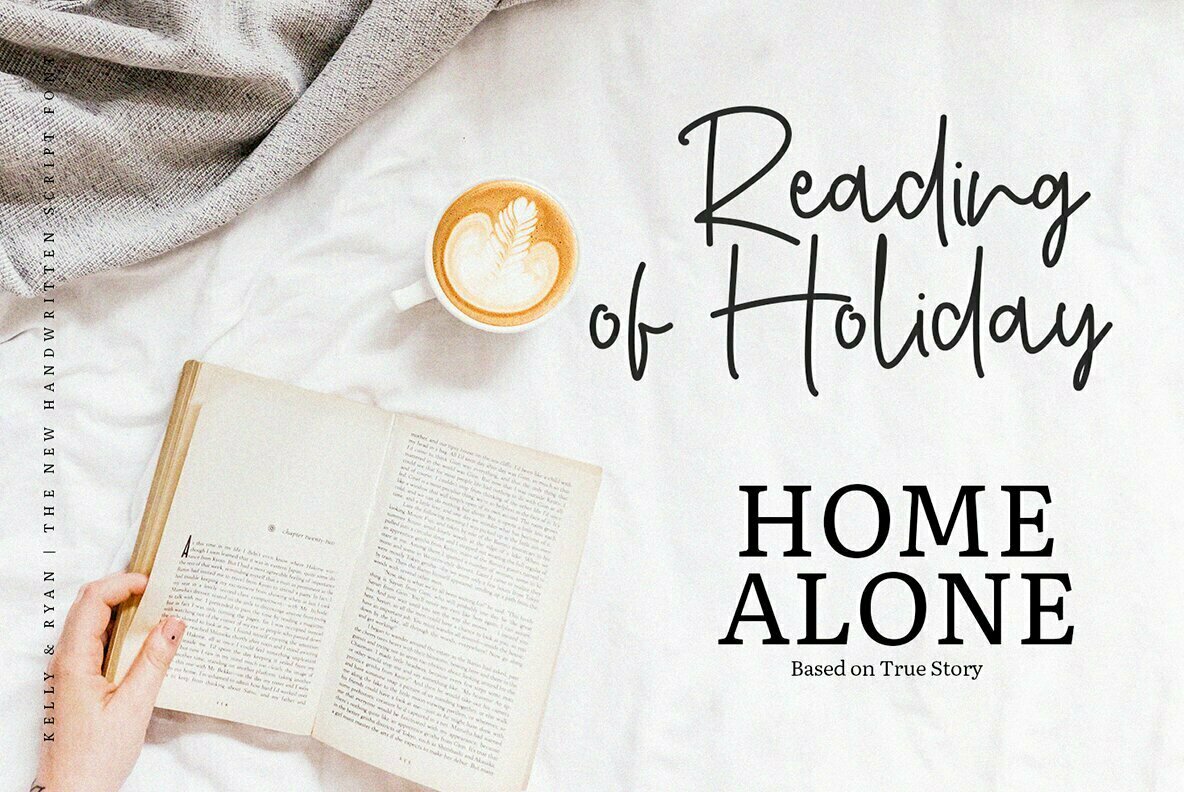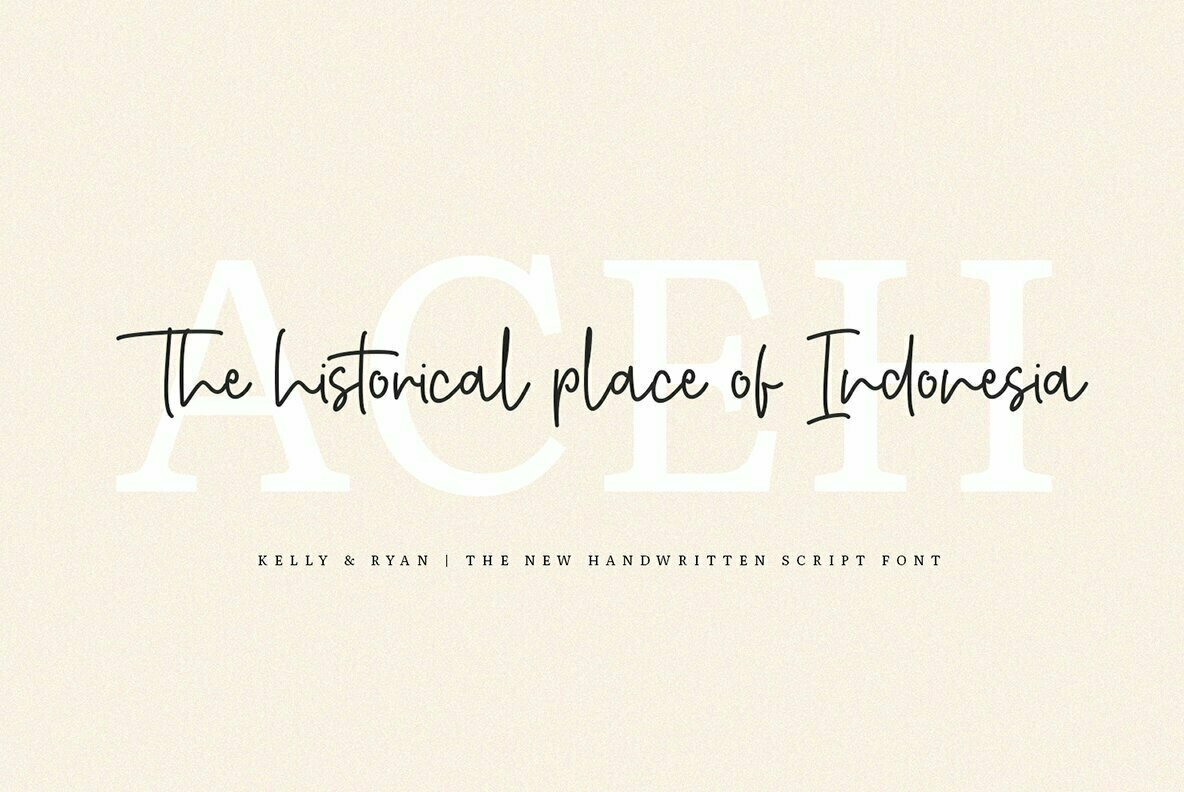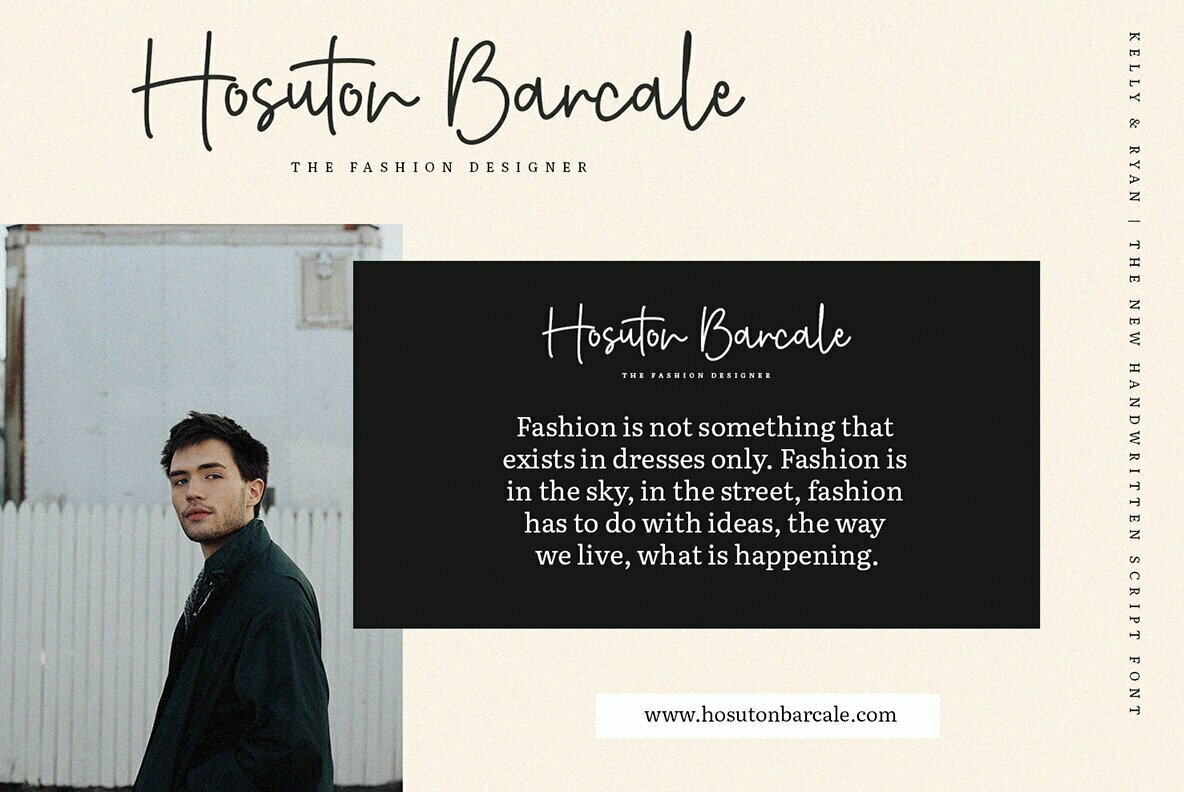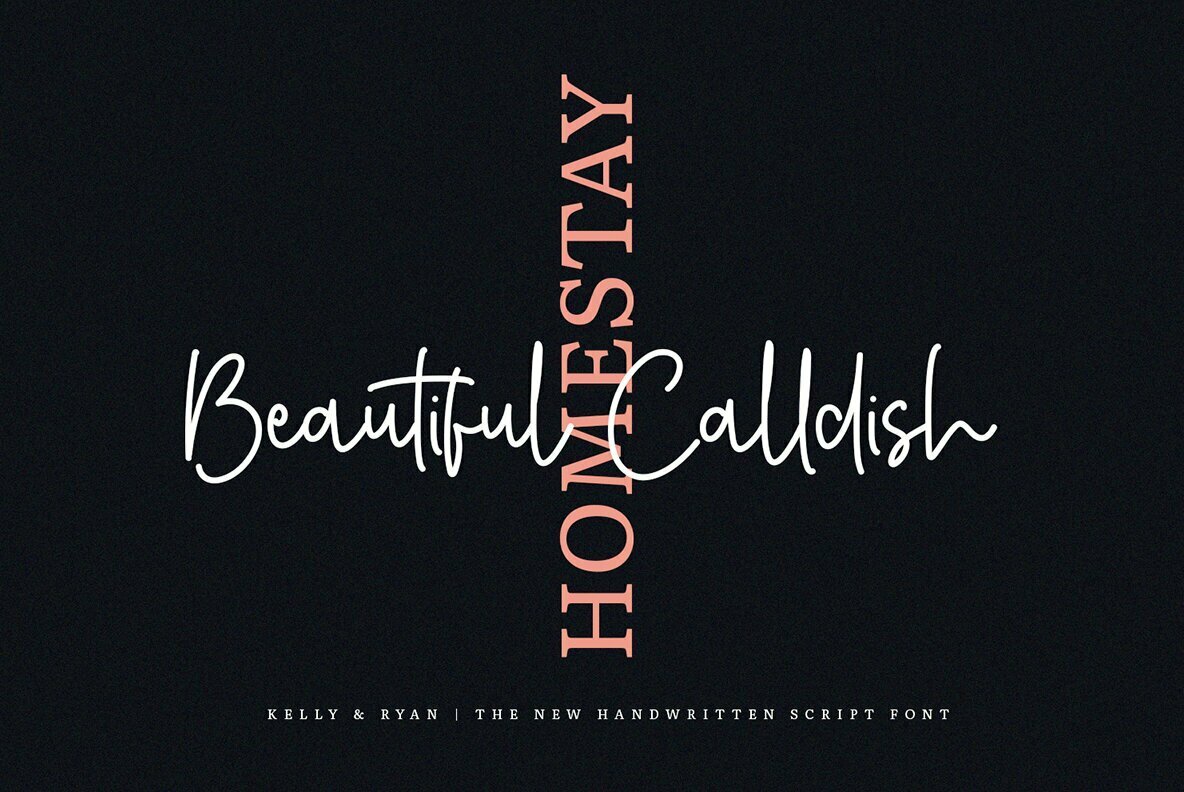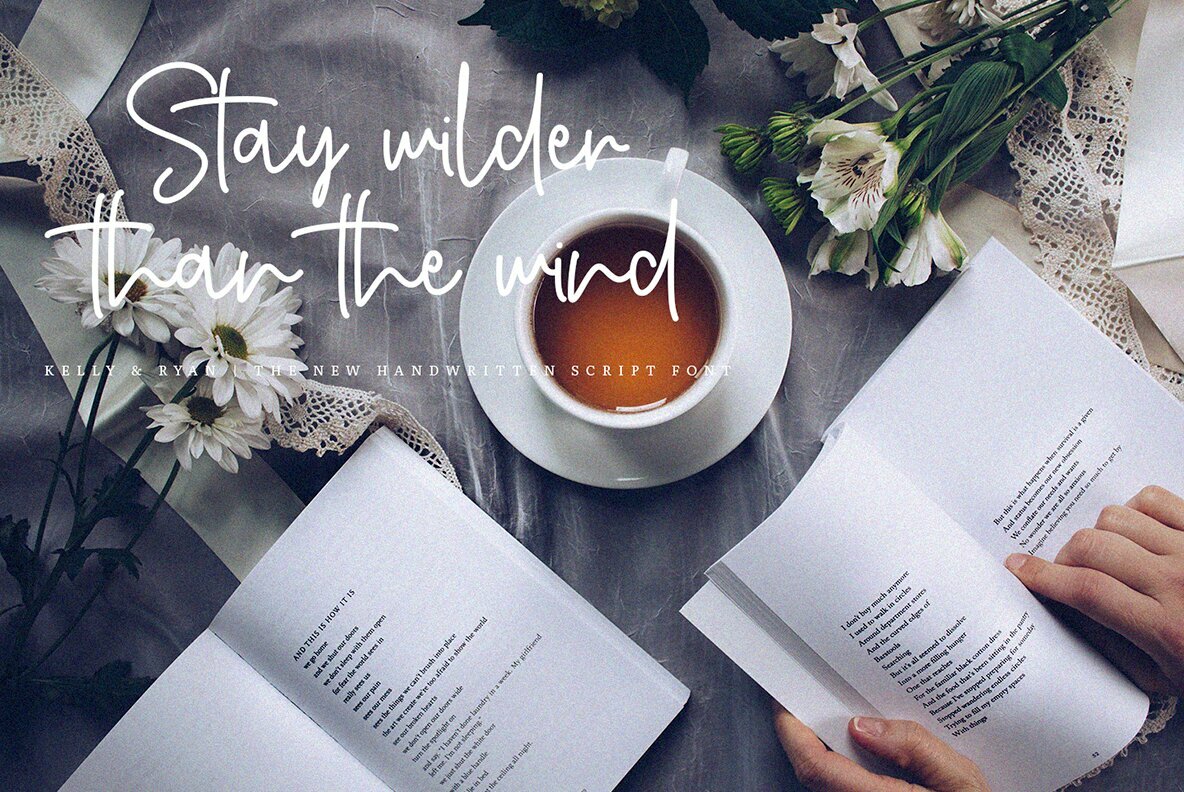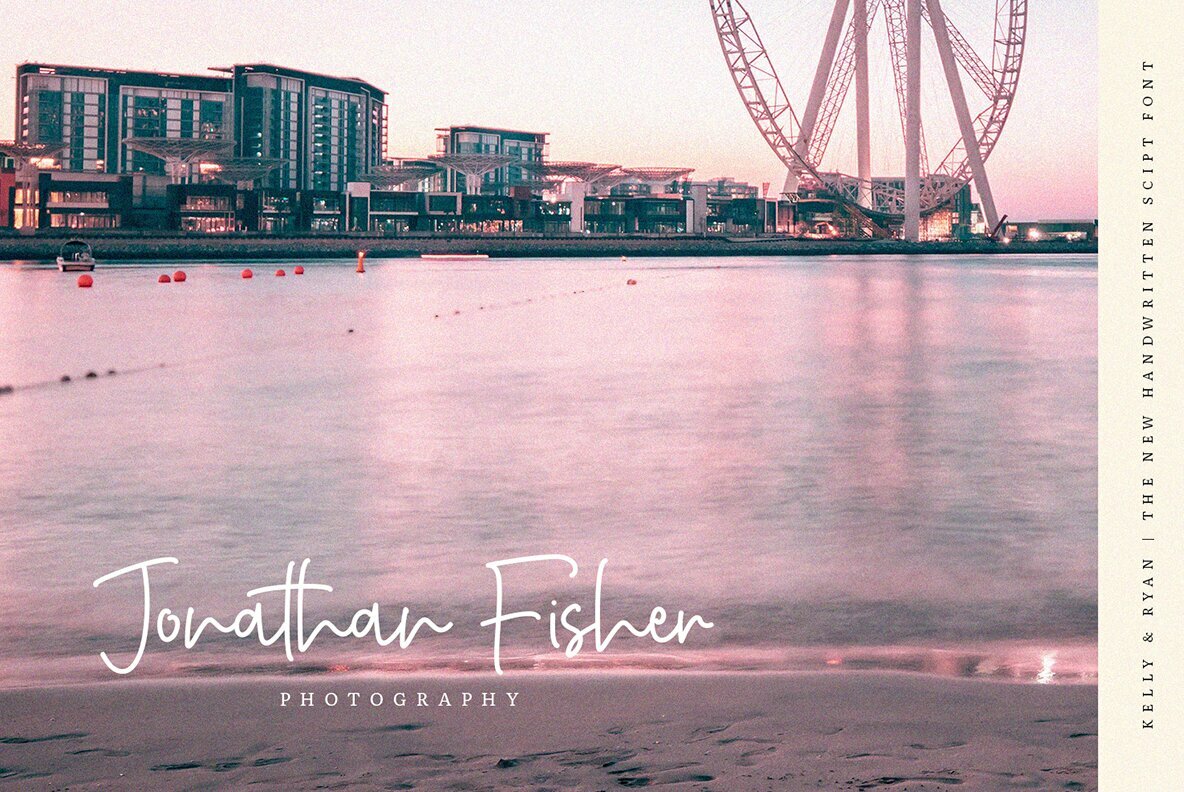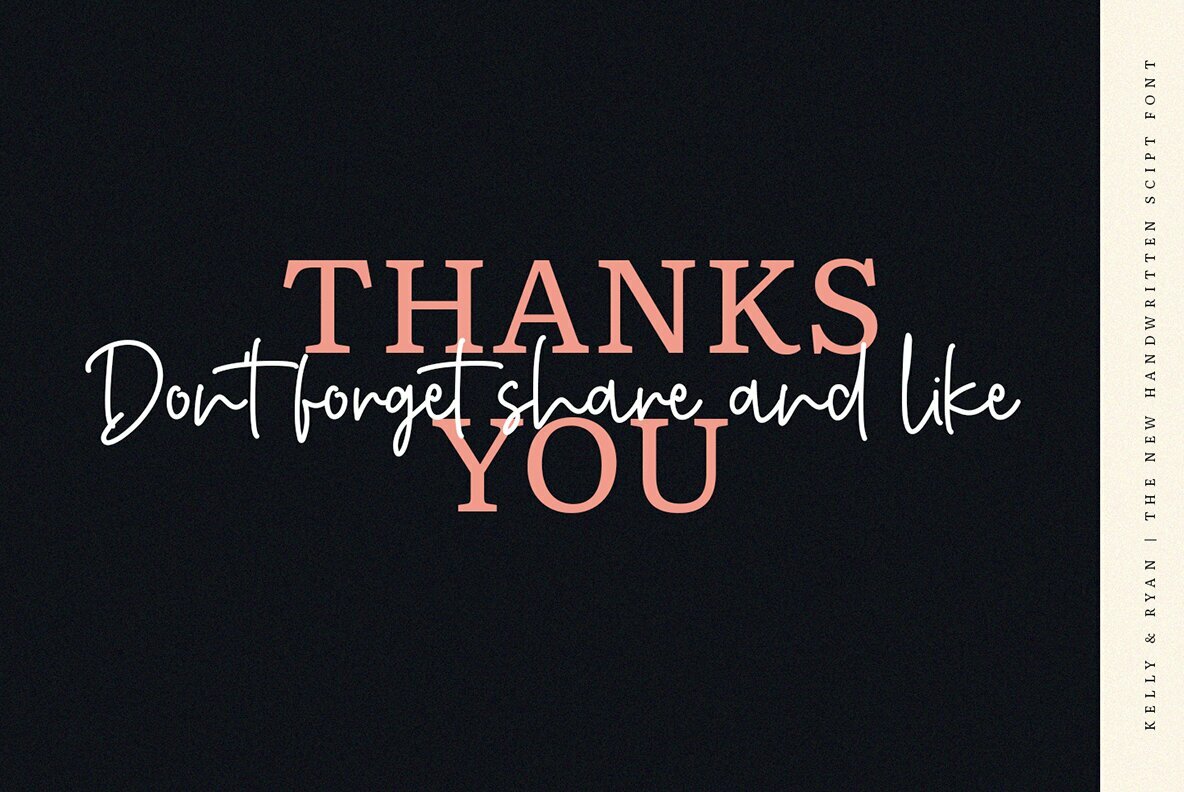
Kelly and Ryan Font
Kelly and Ryan
Kelly & Ryan offers an elegant and feminine touch to any design project. Ideal for branding, wedding invitations, magazines, and merchandise, this font effortlessly stands out. Its versatility makes it suitable for creating memorable quotes, impactful posters, and sophisticated business cards, ensuring your designs catch the eye. Whether crafting headlines, logotypes, or stylish letterheads, Kelly & Ryan adapts with ease, delivering a unique flair to t-shirts and signs with its charming handwritten style.Kelly & Ryan: A Graceful Handwritten Font